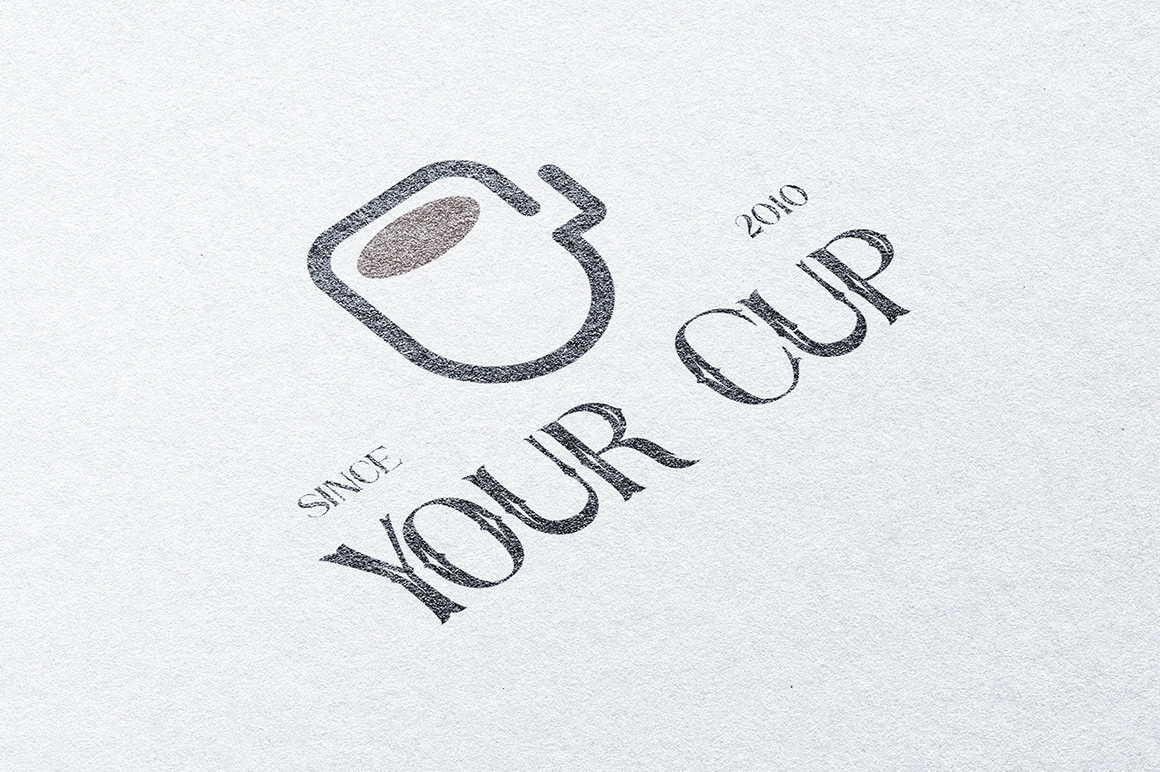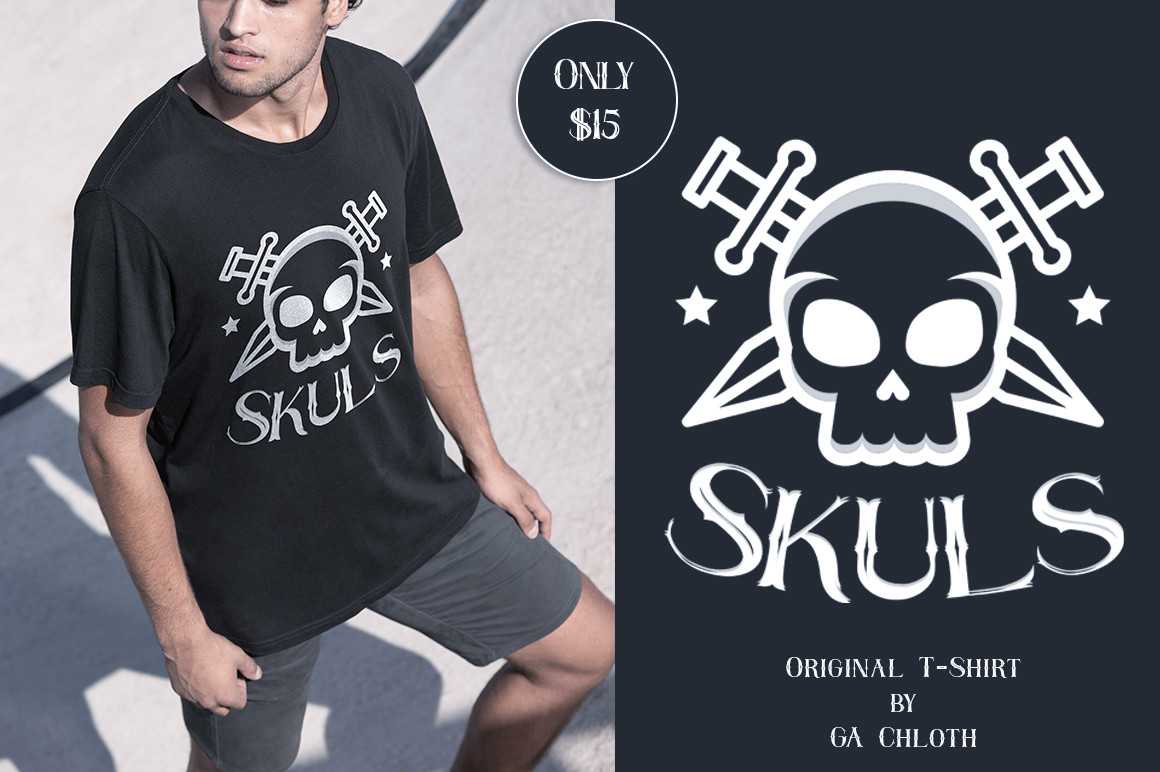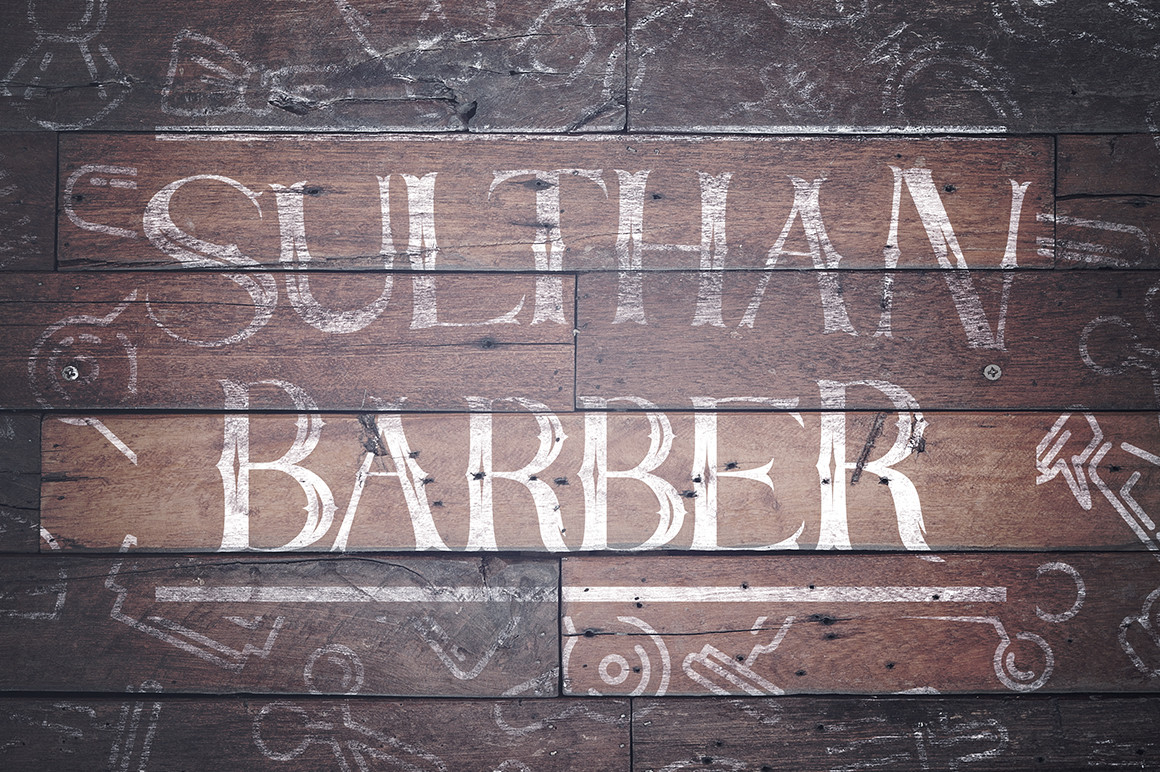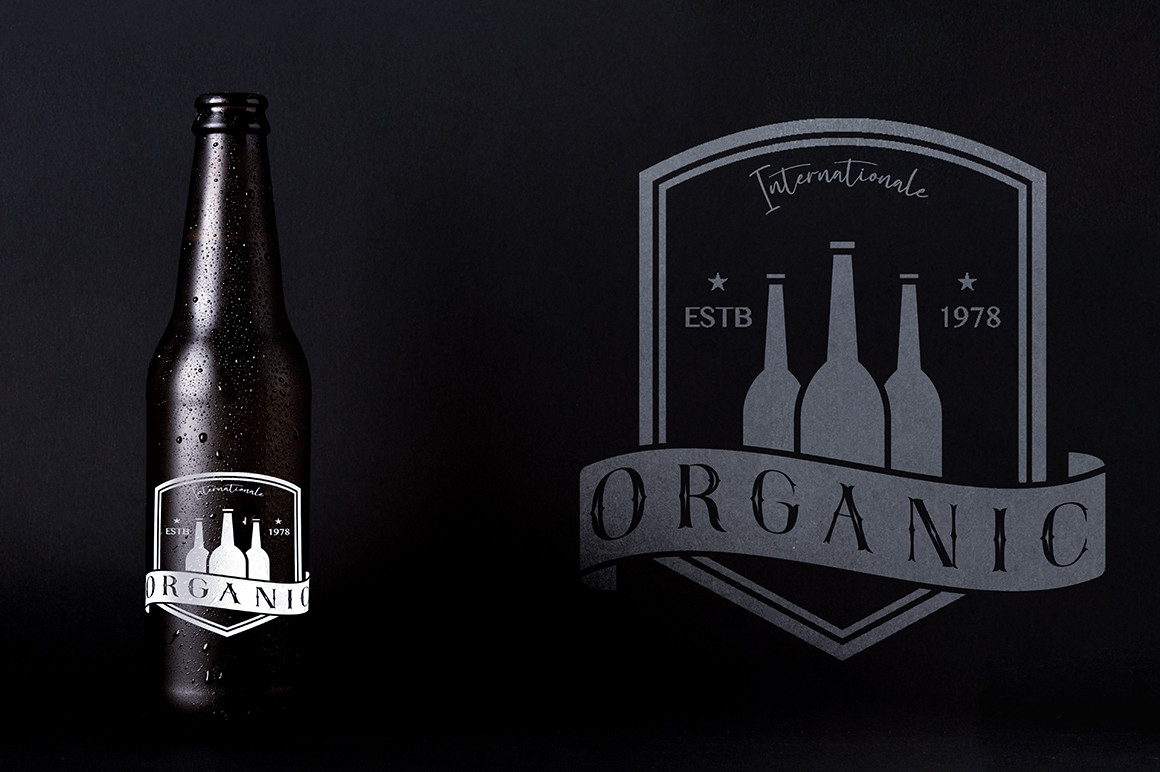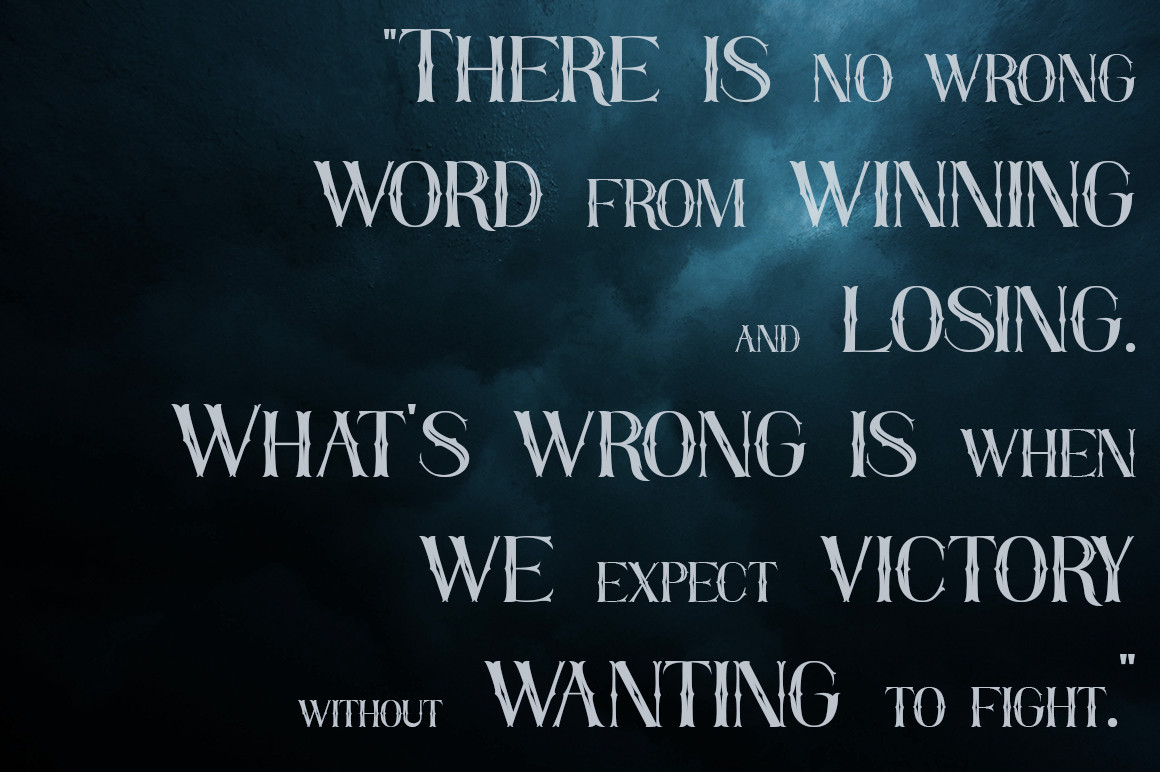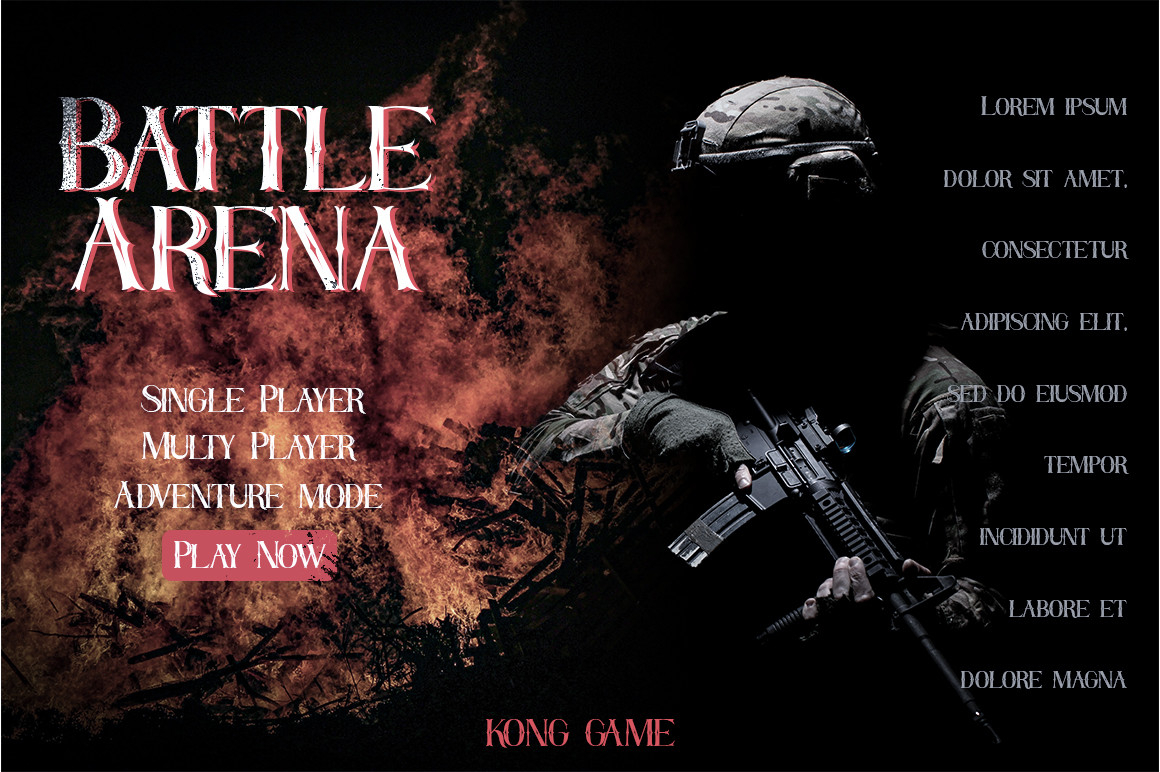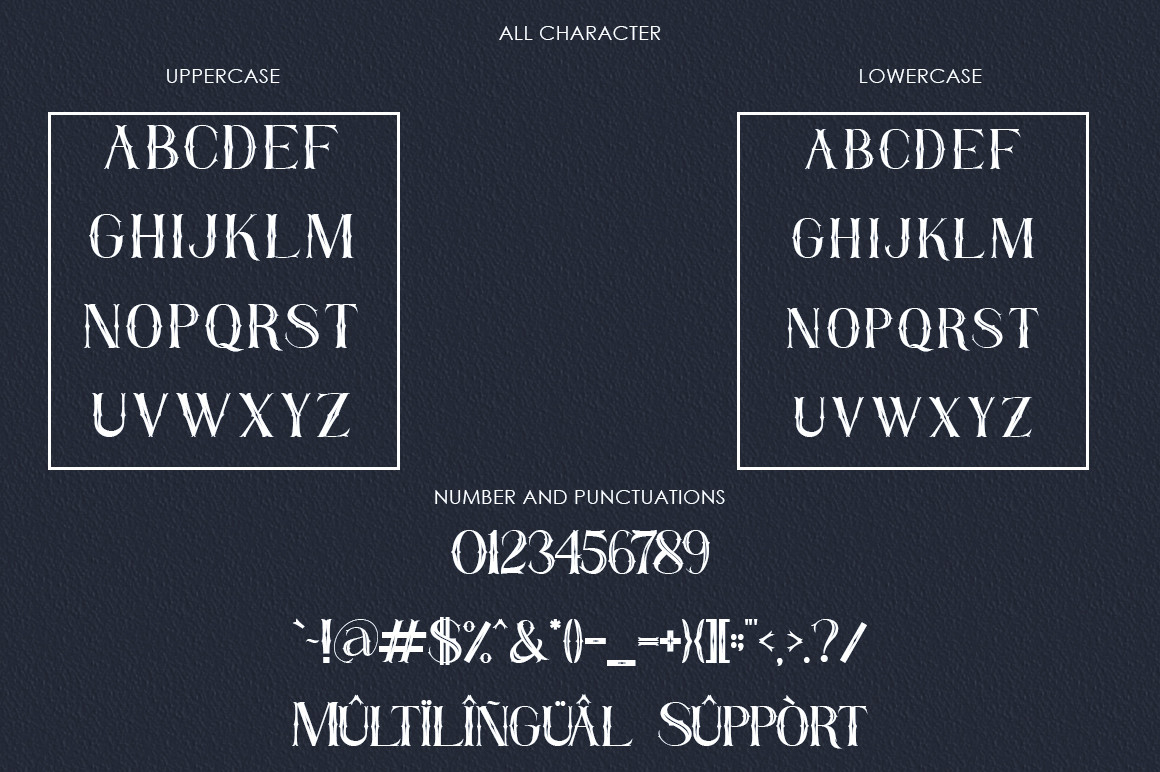
Dragon Slayer Font
About Dragon Slayer Font
Dragon Slayer is a cool, rough textured blackletter font. It is incredibly fit for various labels that require an assertive, bold touch. Add it confidently to your projects, and you will love the results.